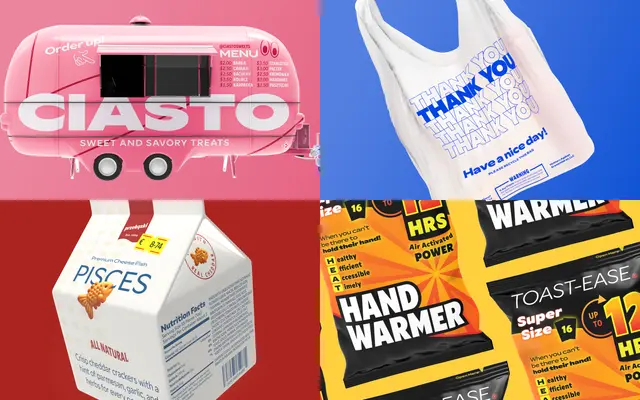
Gamay
Darden Studio · Viktoriya Grabowska · 2024
Gamay specimen from Darden Studio
A 108-style geometric sans by Viktoriya Grabowska that tempers strict construction with calligraphic gestures across six widths and nine weights.
Designed by Viktoriya Grabowska with art direction from Eben Sorkin, Gamay spans six width variants from Narrow to Wide, each offered in nine weights from Thin to Black with matching italics. The geometric skeleton carries calligraphic detail that softens its angularity, giving it character at both display and text sizes. At 108 styles, the family is built to sustain complex typographic systems across editorial, branding and digital work.
Darden Studio classifies Gamay as a geometric sans with calligraphic features; its construction is primarily geometric yet incorporates calligraphic gestures, placing it firmly in the geometric sans category with humanist inflections.